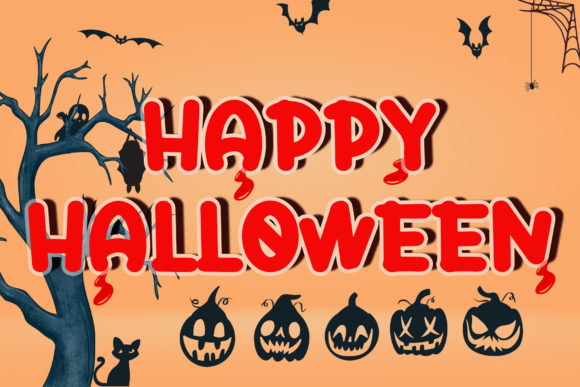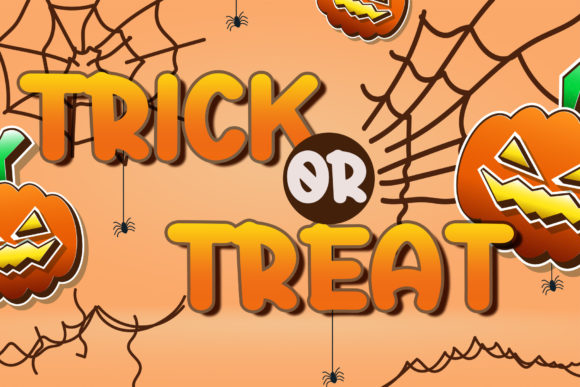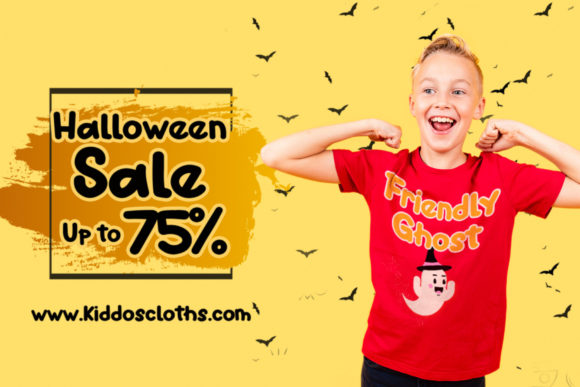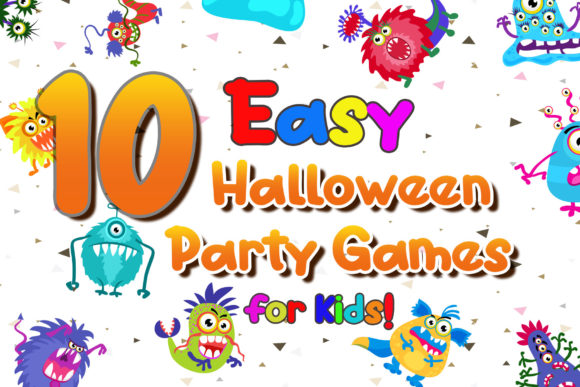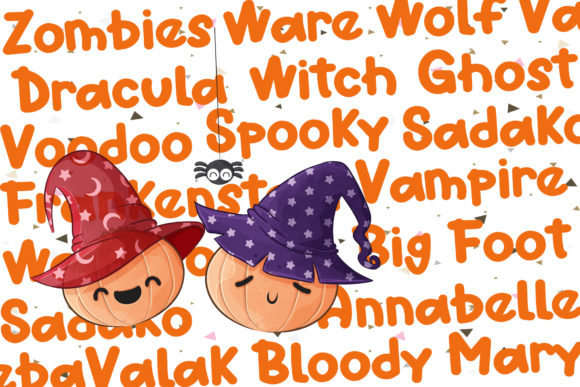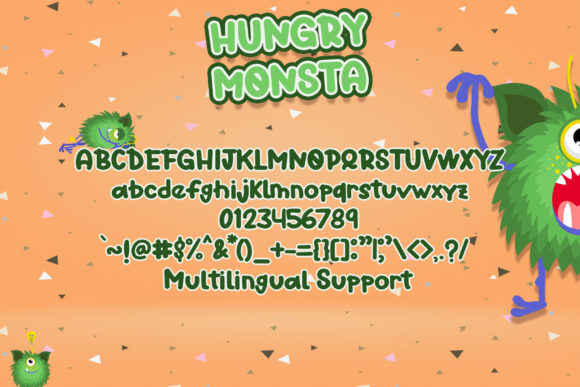
Introduction to Hungry Monsta Font
Hungry Monsta is a cute and cartoon-like display font.
It embodies playfulness and authenticity and is the perfect choice for any children activity or school project .
Key Features of Hungry Monsta Font
Why Choose Hungry Monsta Font?